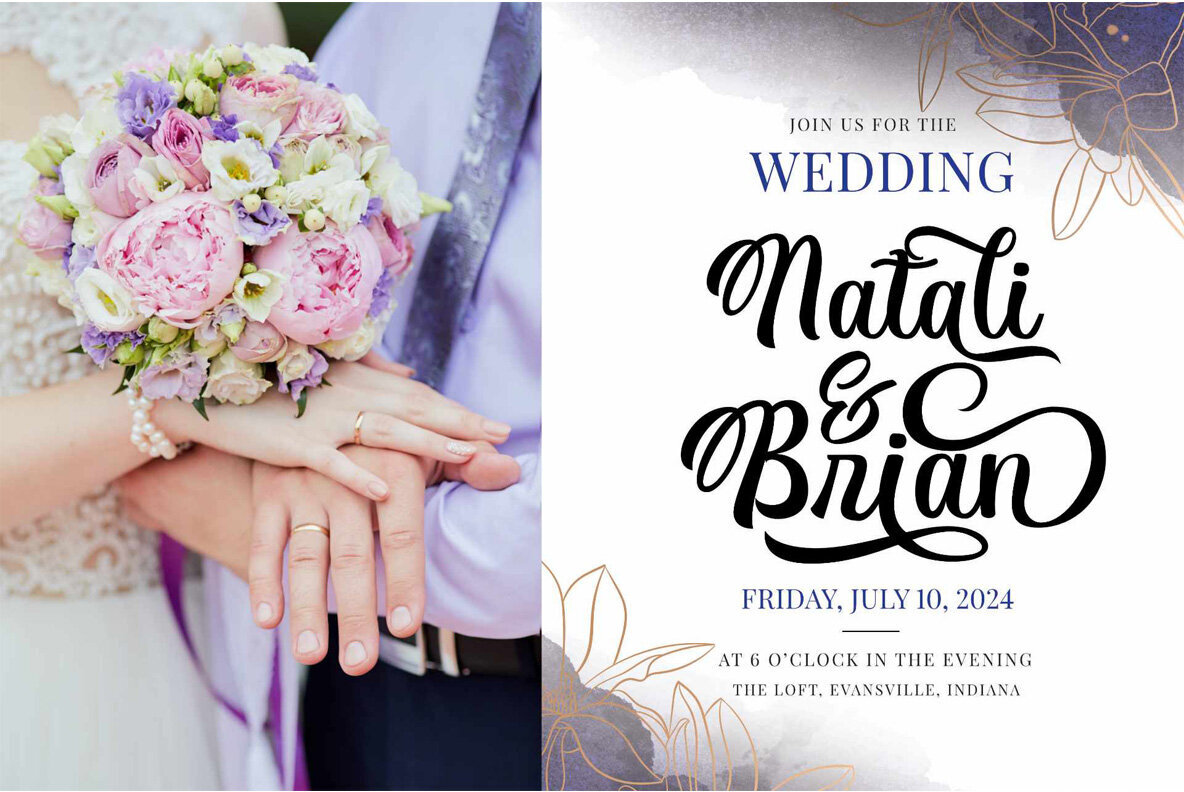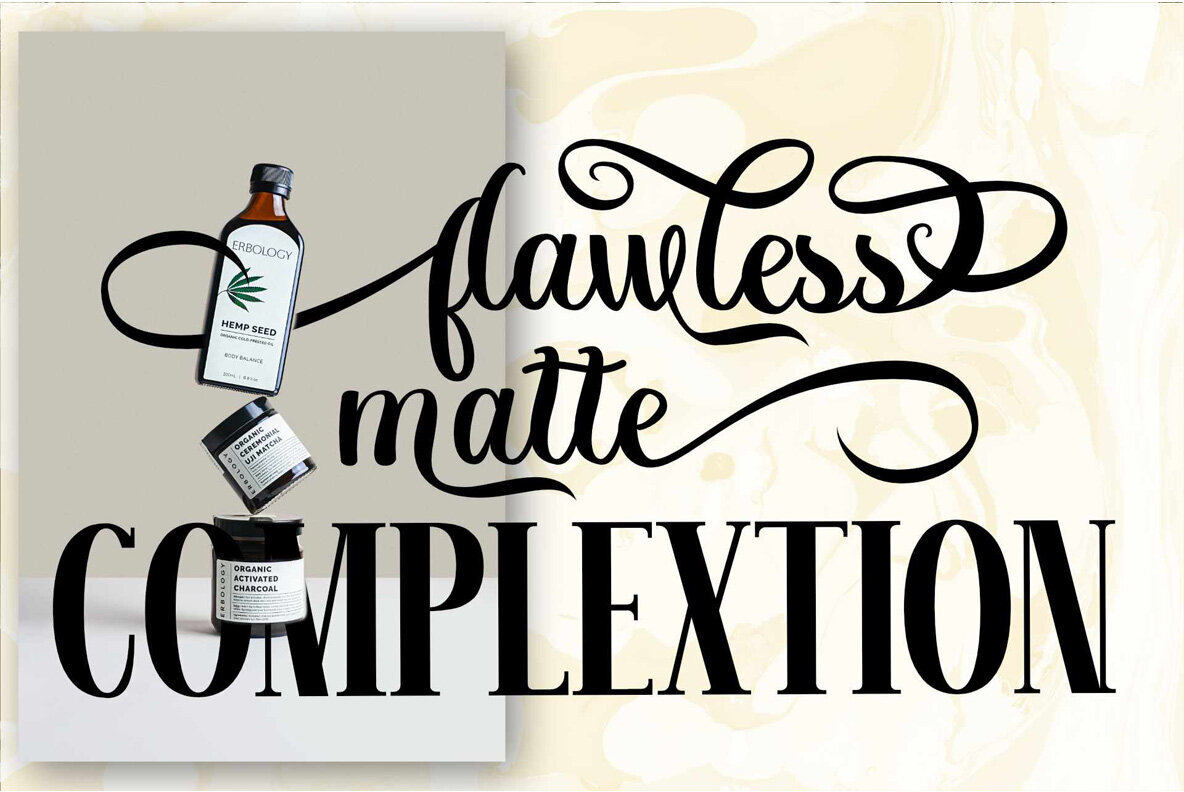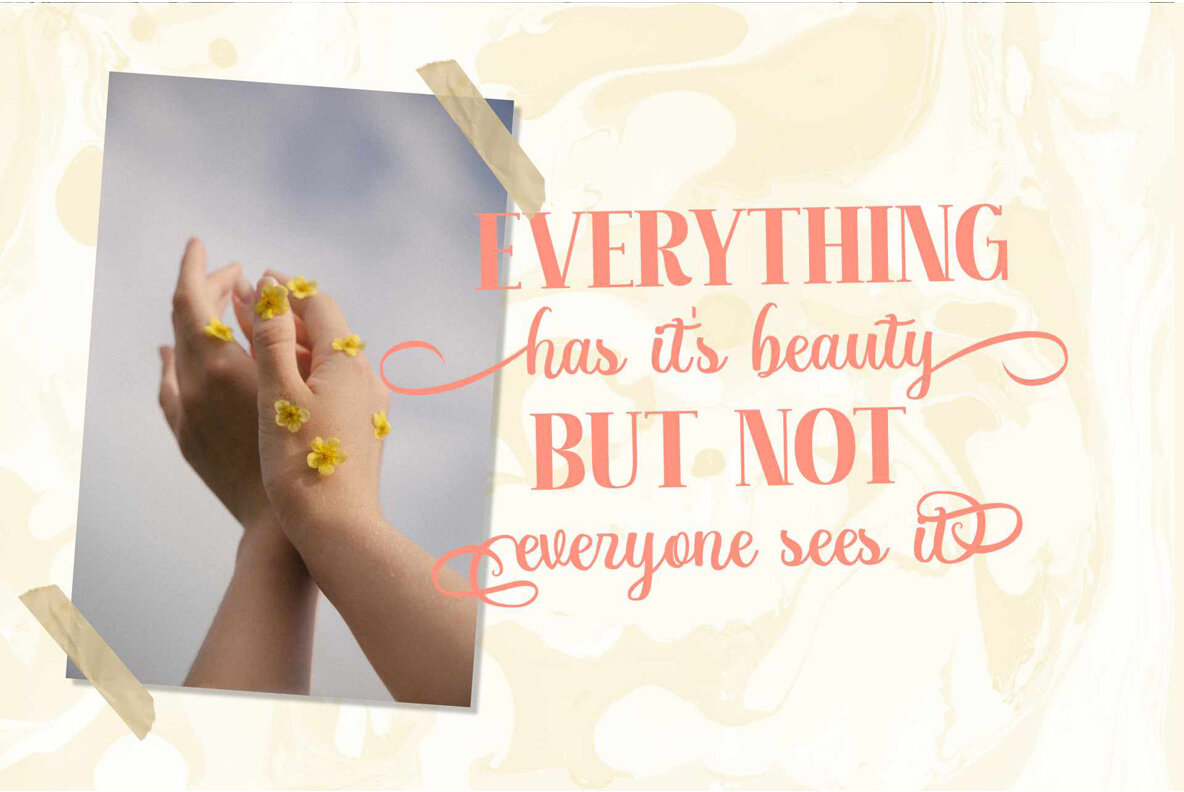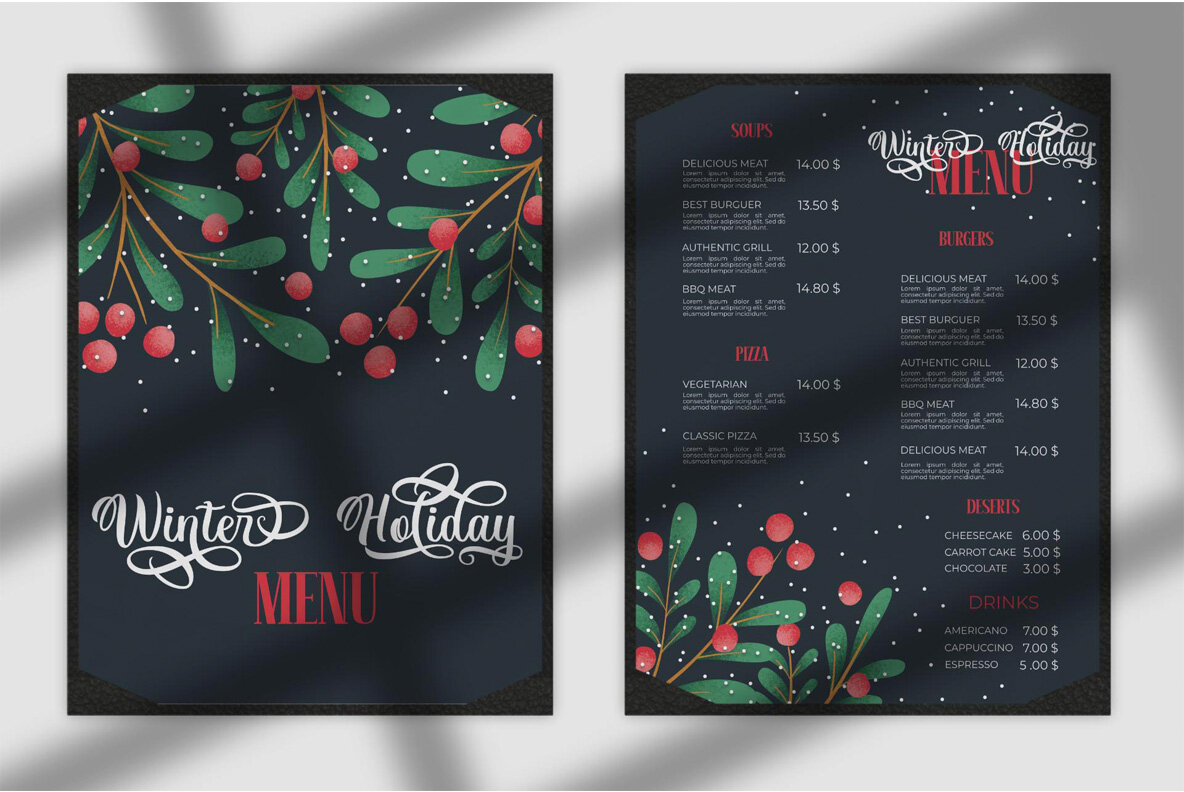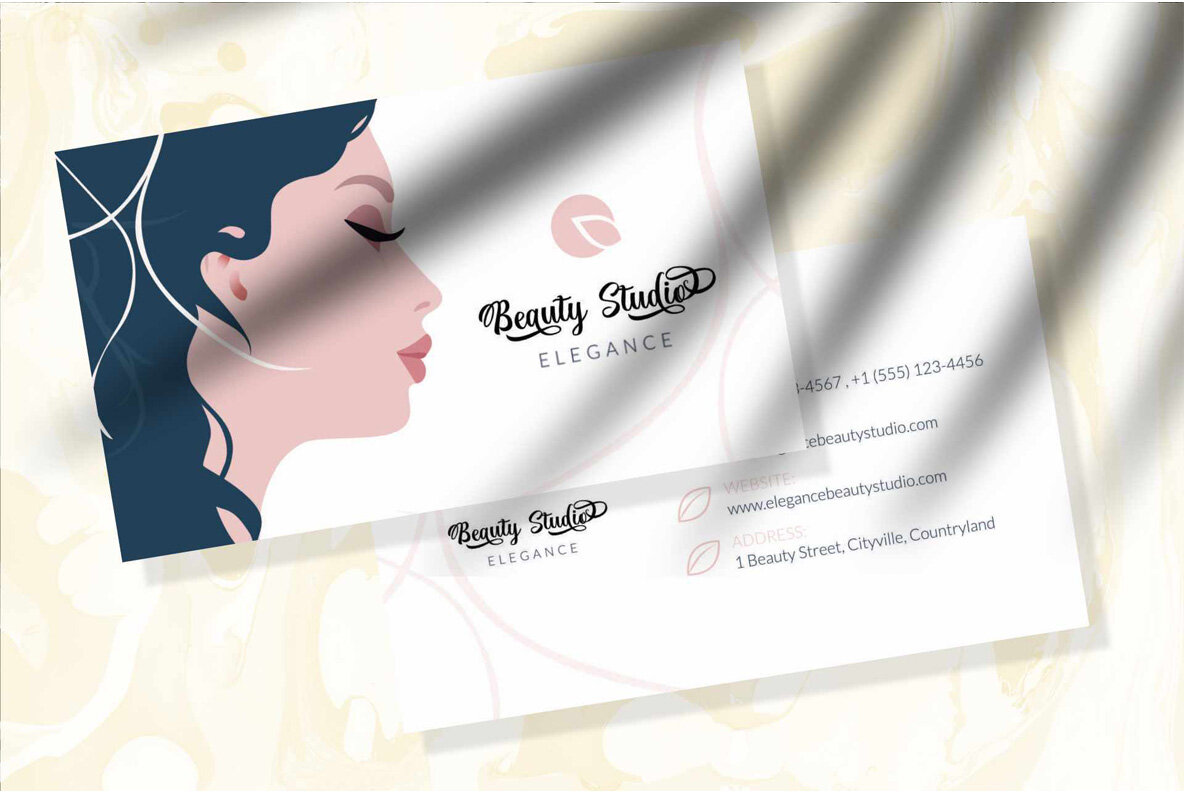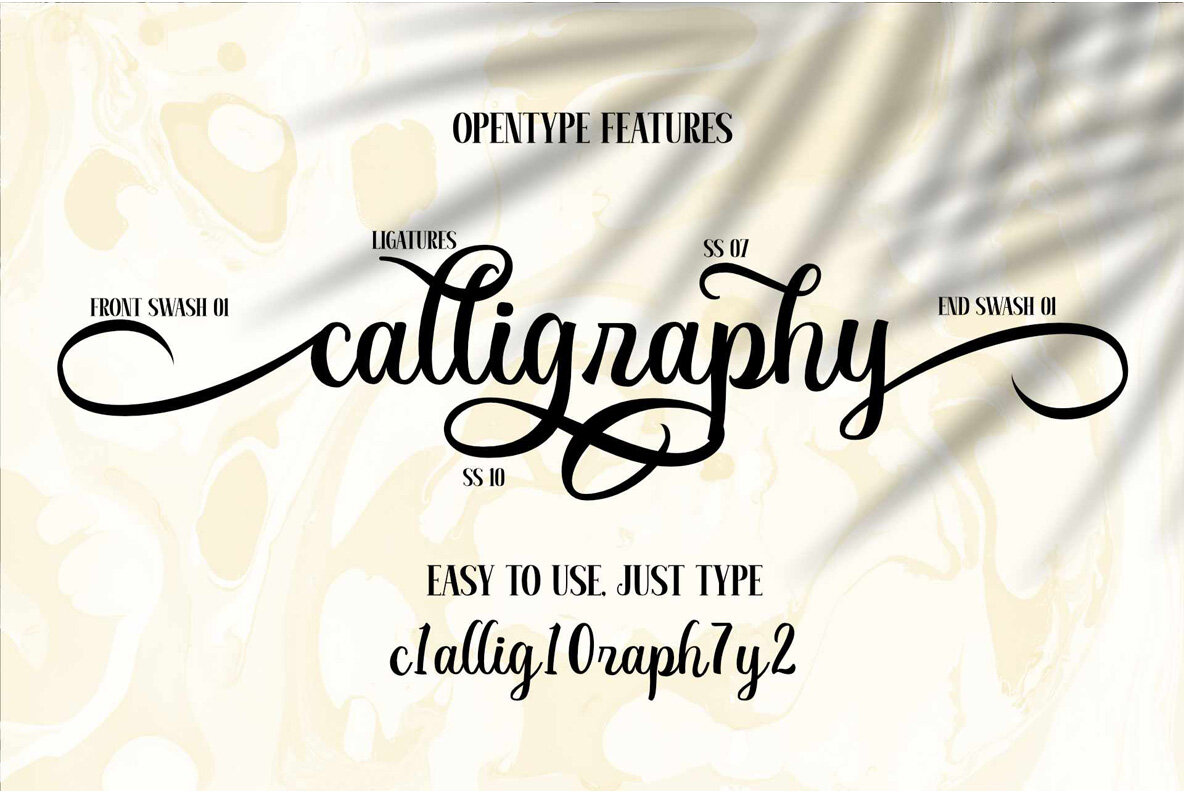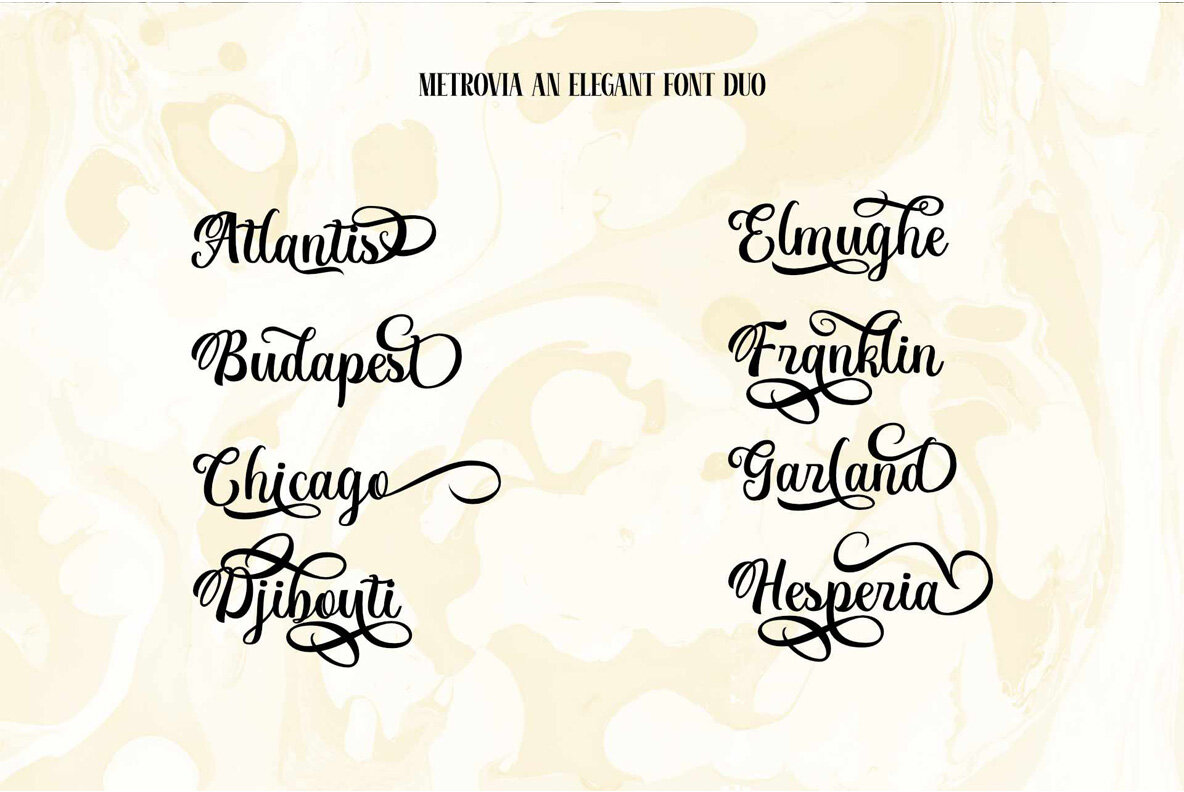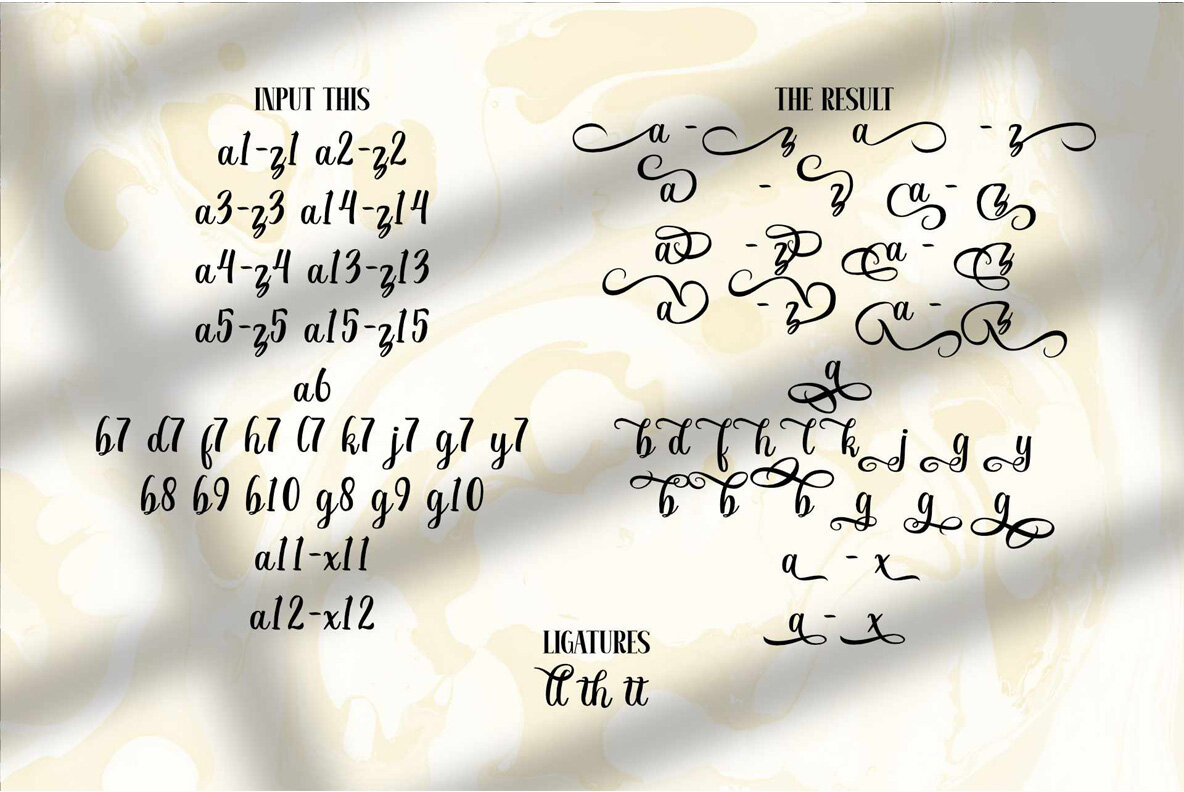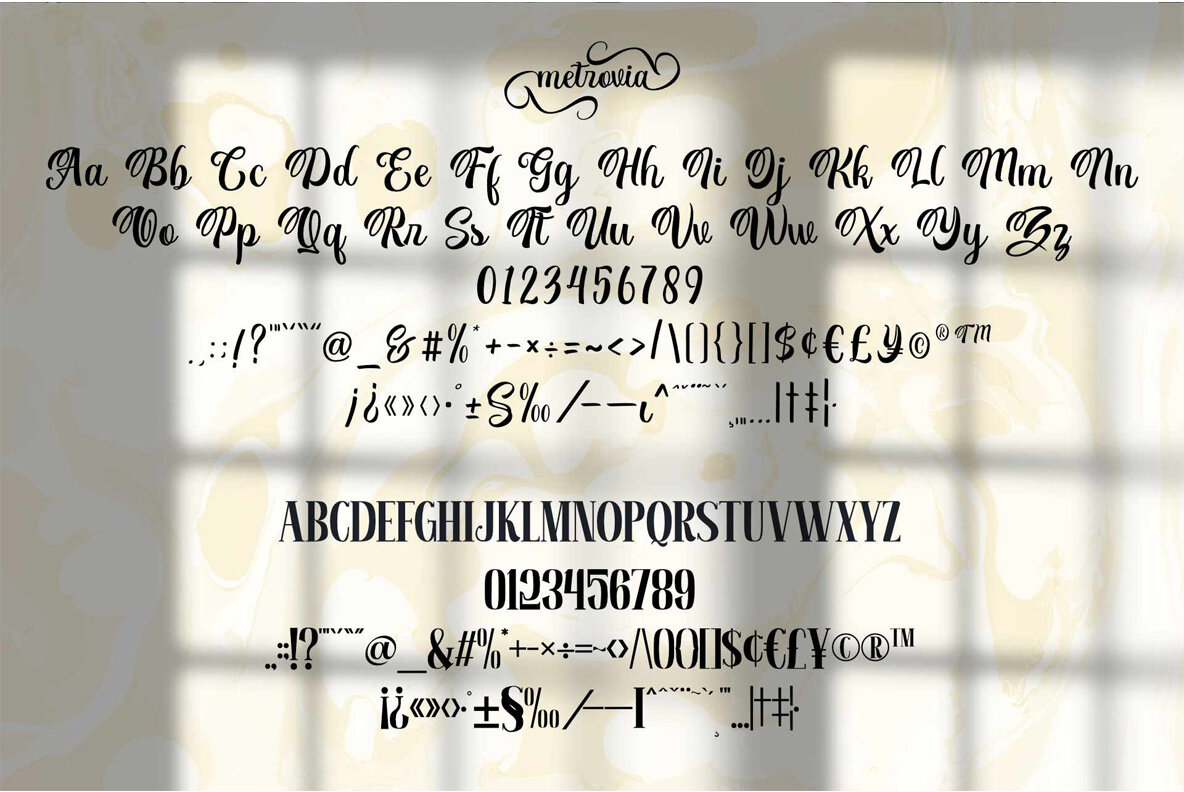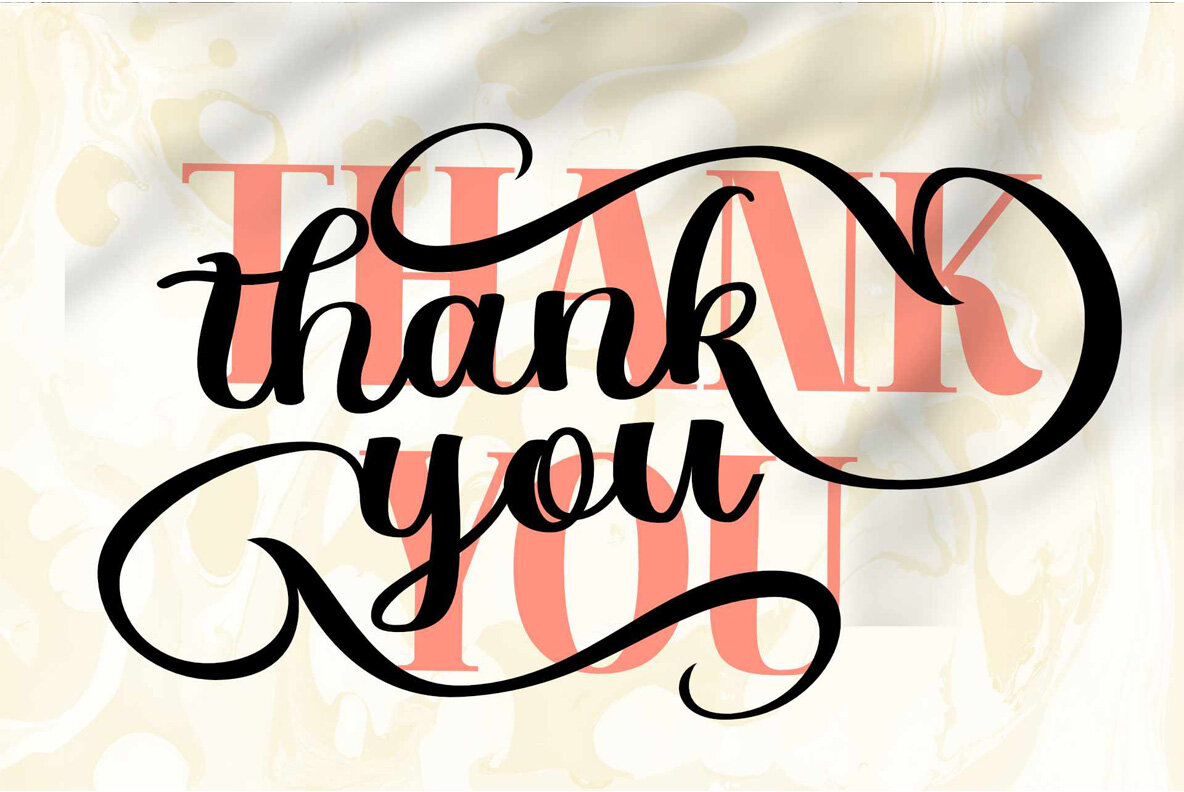
Metrovia Font
Is your branding missing something wonderful that makes people going crazy impressed? Have you thought about how you can add that touch of something to your branding and projects? Want to transport your audience to a world of gorgeous, elegant, wonderful, versatile, yet modern? Then, we have the solution for you. Introducing Metrovia, An Elegant Font duo, Giving you a simple, yet wonderful solution to your branding. This font is more than just another font duo. It encapsulates the essence of modernity and elegance. With elegance and passion edged into every curve and twist of this font – you’ll be sure to boost your sales and make the best impressions. Features: Hopefully, you enjoy your experience in using our font. Feel free to contact us for further product information or trouble complaints. Thank you and happy designing.
Metrovia fits best for any design projects, such as posters, banners, logos, book covers, album covers, quotes, invitations, greeting cards, name cards, headings, printed products, merchandise, social media, etc. Find out more ways to use this font by taking a look at the font preview.